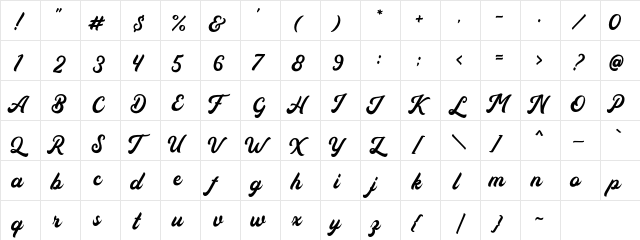
Auckland Script Free Regular
| Foundry | Sarid Ezra |
| Designer | Sarid Ezra |
Design Context for Auckland Script Free Typeface
Auckland Script Free flows with the natural rhythm of handwritten lettering, making it ideal for designs that call for warmth and personal expression.
Font Pairing: Combine Auckland Script Free with a simple geometric sans for maximum contrast — the tension between flowing curves and clean structure is a classic typographic pairing.
Pro Tip: Pair Auckland Script Free with a clean sans-serif for supporting text. The contrast between fluid script and geometric structure creates an elegant typographic hierarchy.